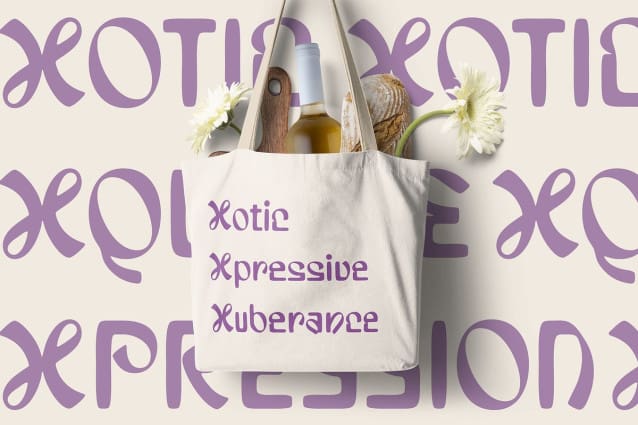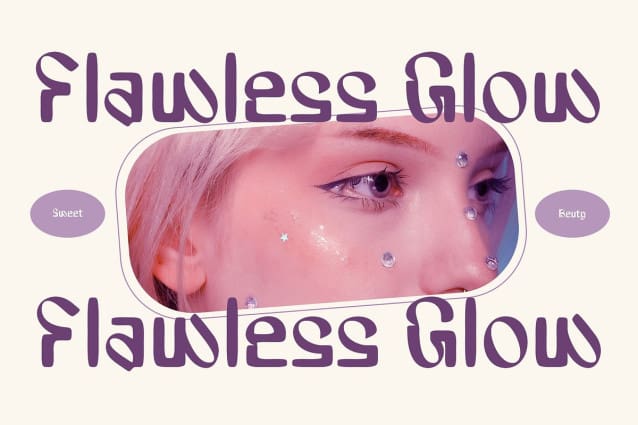
CS Halora Drawn Font
CS Halora Drawn Font is a dynamic modern display font that expertly blends the clean lines of geometric shapes with the creative flair of hand-drawn effects. The font’s symmetrical and balanced structure is grounded in precise geometric forms, ensuring a sense of order and clarity.
Geometric Form Meets Organic Texture While the geometric shapes offer stability and modernity, the drawn effect introduces a touch of organic imperfection, adding texture and a hand-sketched, artistic quality to the design. The result is a striking mix of technical precision and personal creativity, offering a unique aesthetic that is both contemporary and expressive.
Ideal for Standout Designs This drawn font is designed to command attention and stand out in any project. Its distinctive appearance makes it perfect for poster designs, branding, editorial layouts, and any creative work that requires a bold yet sophisticated typeface.
Contemporary Elegance with an Artistic Touch This font balances modern aesthetics with artistic expression, making it an ideal choice for designs that aim to make a statement while retaining an elegant and refined feel. Its unique blend of geometric structure, decorative detail, and hand-drawn effects ensures that this font is perfect for projects that demand both precision and creativity, adding a personal and imaginative touch to any design.